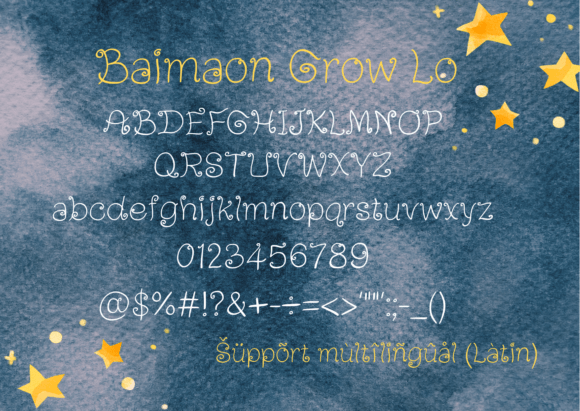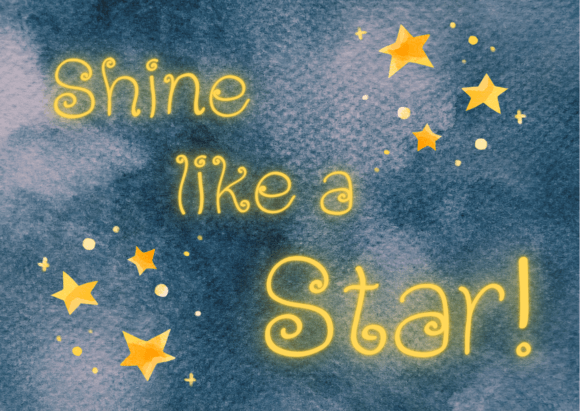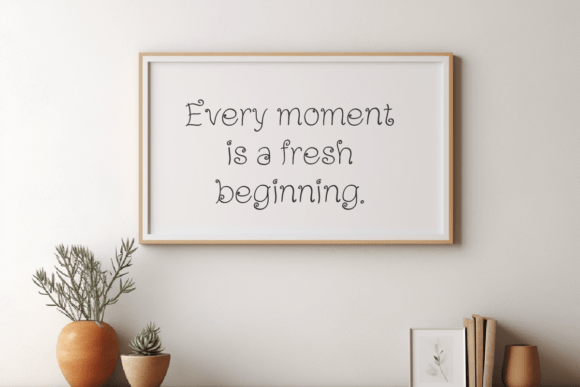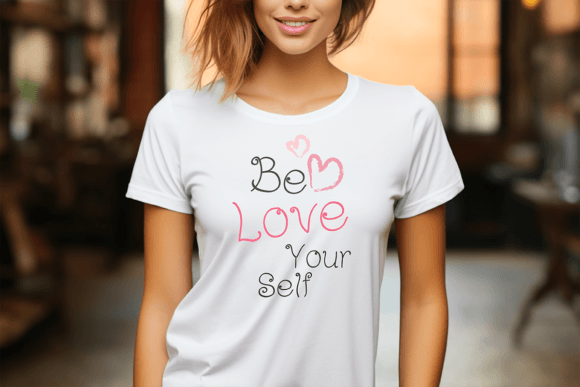
Discover the Playful Charm of Baimaon Grow Lo Font
Are you on the hunt for a font that adds a dash of whimsy and fun to your designs? Look no further than Baimaon Grow Lo Font! This quirky, cute, and playful handwritten font is perfect for injecting a casual vibe into your creative projects. Whether you’re a designer, crafter, or simply a DIY enthusiast, Baimaon Grow Lo is sure to become your new go-to font.
The Informal Style of Baimaon Grow Lo
Baimaon Grow Lo Font boasts an informal style that’s perfect for creating fun and laid-back designs. Its casual vibe makes it an excellent choice for projects that require a personal touch, such as:
- Wedding invitations: Add a playful twist to your wedding stationery with Baimaon Grow Lo.
- Thank you cards: Express your gratitude with a heartfelt, handwritten touch.
- Quotes: Make your quotes stand out with a font that’s as unique as your message.
- Greeting cards: Create one-of-a-kind cards for birthdays, holidays, and special occasions.
- Logos: Give your brand a playful edge with Baimaon Grow Lo.
The versatility of Baimaon Grow Lo Font knows no bounds! Here are some more ideas to get you started:
- Posters: Create eye-catching posters for events, promotions, or simply to decorate your walls.
- Social media posts: Add a personal touch to your social media posts and stories.
- Blogs: Make your blog stand out with a unique font that’s sure to engage your readers.
- Bag designs: Add a playful touch to your tote bags, pouches, or other textile projects.
- T-Shirt designs: Create fun and quirky designs for your apparel.
- Clothing and accessories: Add a personal touch to your fashion designs or DIY projects.
Why Baimaon Grow Lo Font Stands Out
So, what makes Baimaon Grow Lo Font so special? Here are just a few reasons why it’s a must-have for designers and crafters:
- Unique and quirky style: Baimaon Grow Lo adds a touch of whimsy to any design.
- Cute and playful vibe: Perfect for creating fun and engaging designs.
- Handwritten feel: Adds a personal touch to your designs.
- Informal style: Great for creating casual, laid-back designs.
Tips for Using Baimaon Grow Lo Font
To make the most of Baimaon Grow Lo Font, here are some tips to keep in mind:
- Pair it with contrasting fonts: Combine Baimaon Grow Lo with a clean, sans-serif font for a striking contrast.
- Experiment with colors: Try out different colors to find the perfect match for your design.
- Play with sizes: Use Baimaon Grow Lo in various sizes to create visual interest.
- Add embellishments: Consider adding illustrations or graphics to enhance your design.
Baimaon Grow Lo Font is a fun, quirky, and playful handwritten font that’s perfect for designers and crafters looking to add a personal touch to their projects. With its informal style and casual vibe, it’s ideal for creating unique and engaging designs. So why not give Baimaon Grow Lo a try? Add it to your creative toolkit and watch your designs come to life!